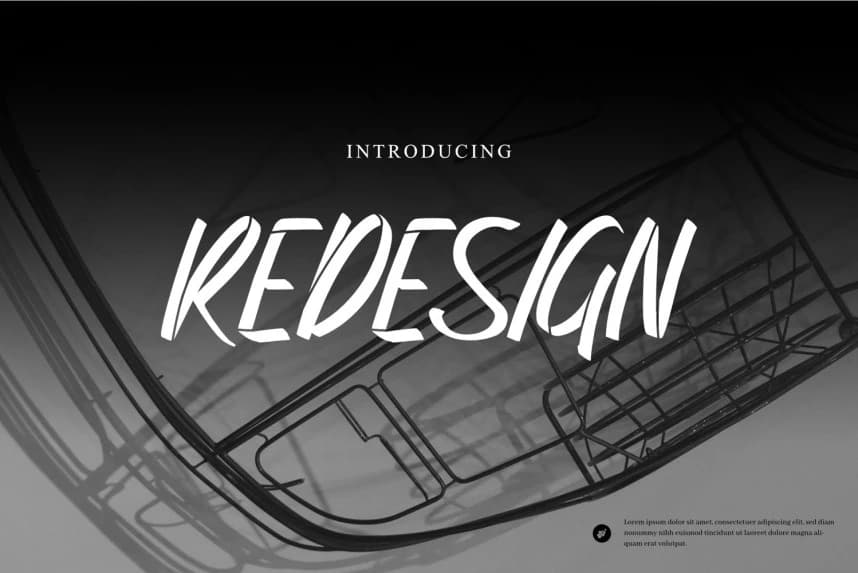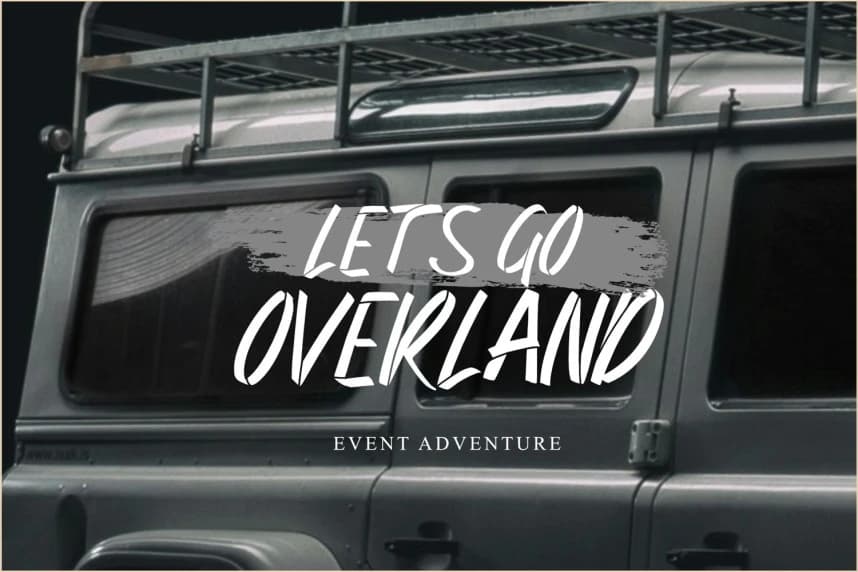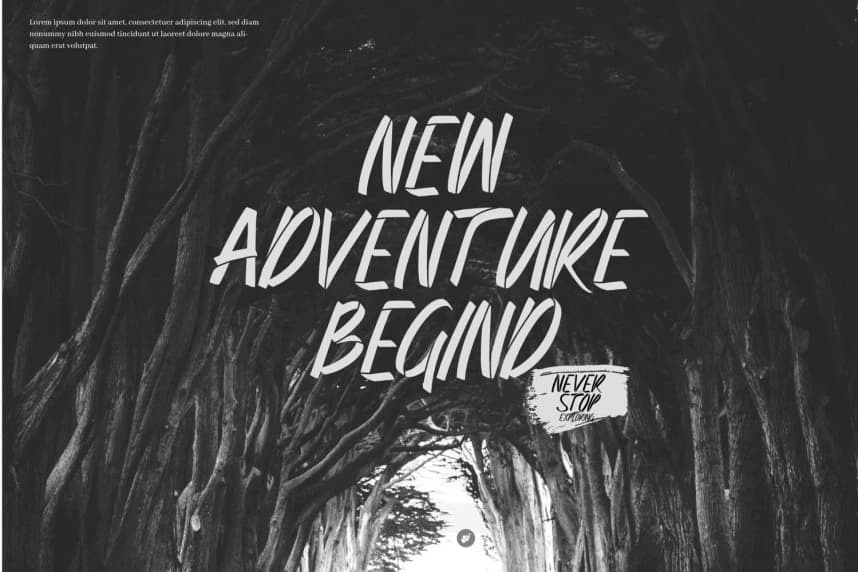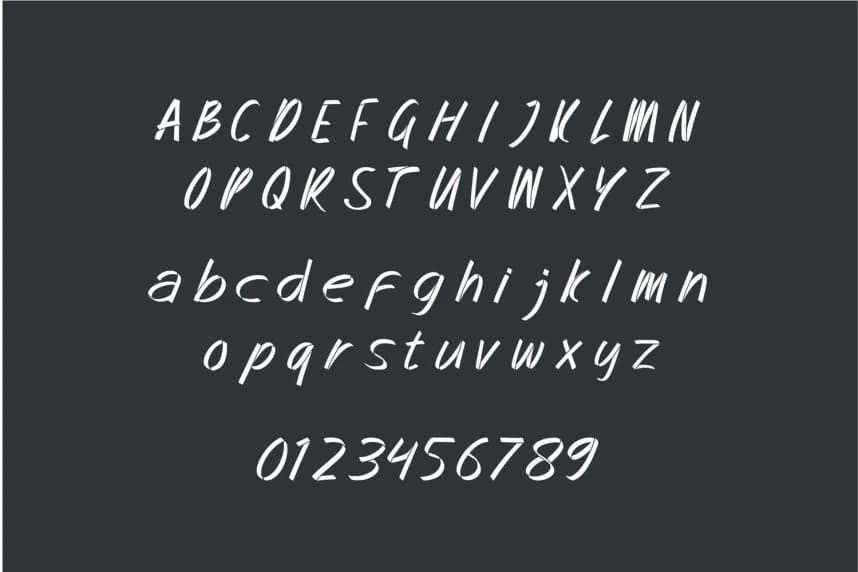
Redesign Stencil Font
Redesign Stencil Font - Brush Stencil Font is a rough brushstroke style font combined with a firm stencil cut, creating a strong, bold, and expressive letter character. This font is designed for those of you who want to display street, rebel, and modern visuals in one typographic touch.
Redesign Stencil